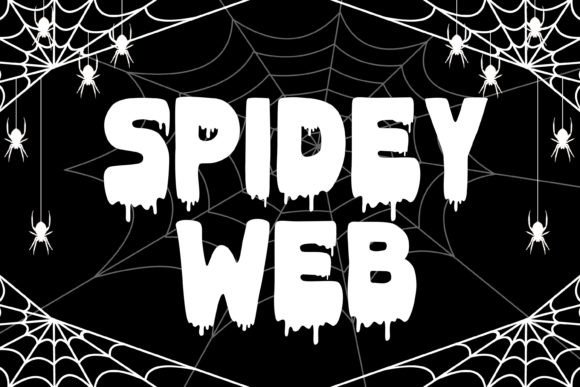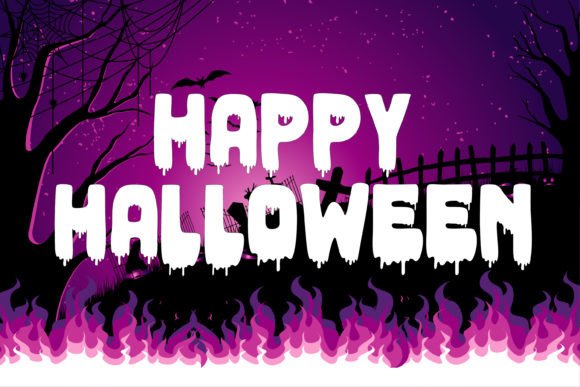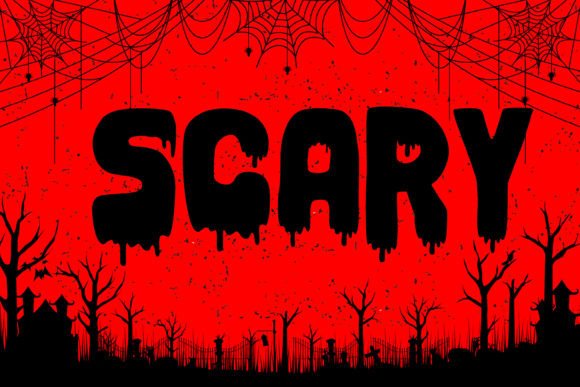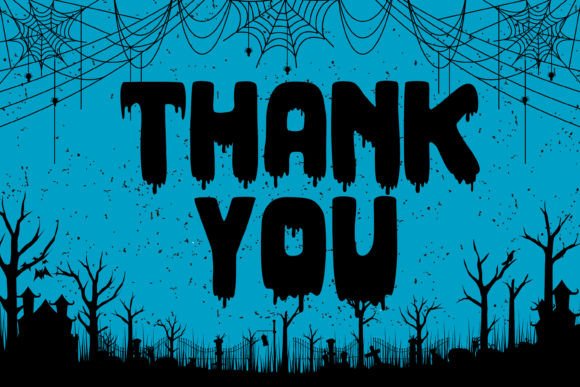
Introduction to Melted Font
Imagine you’re browsing through your favorite design resource, searching for the perfect font to add a touch of eeriness to your Halloween-themed social media post. Suddenly, you stumble upon it – a font that’s so creepy, quirky, and cool that it makes your design vision come alive. Welcome to the world of Melted Font, a high-quality display font that’s sure to make your creative project stand out.
As a designer, you’re always on the lookout for unique design elements that can elevate your work. The Melted Font is a valuable resource for any creative project, offering a transparent background and a wide range of glyphs and swashes that can be easily accessed thanks to its PUA encoding. With its free download option, you can experiment with this font on your next design project and see the magic it can bring to your work.
Key Features of Melted Font
- High-quality font design with a unique, melted aesthetic, perfect for creative projects.
- Transparent background, enabling users to easily layer the font over images or other design elements.
- Unique, distressed texture adds a creative touch to any design project, making it an ideal choice for artistic and editorial designs.
Honest Review: Melted Font
I recently stumbled upon the Melted Font, a design resource that caught my attention with its unique and creative vibe. I downloaded it for free and decided to put it to the test in my next design project.
What works well: ✨ The Melted Font has a high quality design that looks stunning on any background. The transparent background option is a bonus, allowing for seamless integration with any color scheme. I also appreciate the free download, which is always a plus for designers on a budget.
- Unique and creative design
- High quality and crisp typography
Limitations: ⚠️ While the Melted Font is a great addition to any design resource library, I did find that it’s limited in terms of customization options. As a designer, I appreciate having more control over the font’s appearance, but in this case, the Melted Font is more of a “set it and forget it” kind of font.
Overall impression: I’m impressed with the Melted Font’s unique design and high quality typography. While it may not be the most customizable font out there, it’s a great addition to any design resource library and is sure to add a touch of creativity to any project.
Melted Font
Tips for Getting the Most Out of Melted Font
To get the most out of Melted Font, try the following:
- Experiment with different font sizes and colors.
- Combine Melted Font with other design elements for a unique look.
- Use it for creative projects like posters, flyers, and social media graphics.
Melted Font is perfect for various creative projects, including:
- Posters and flyers.